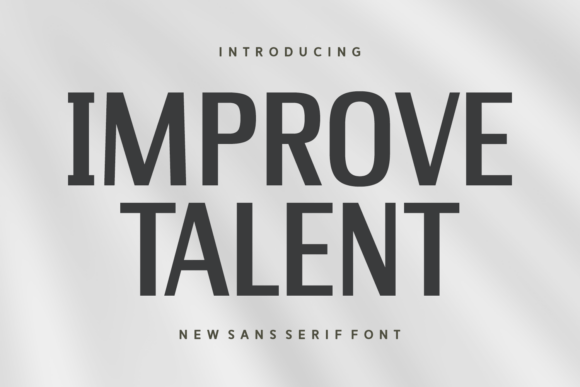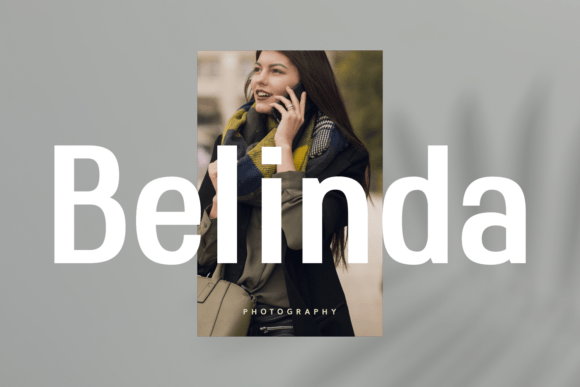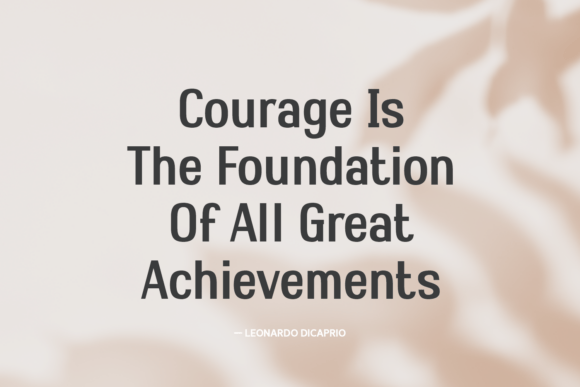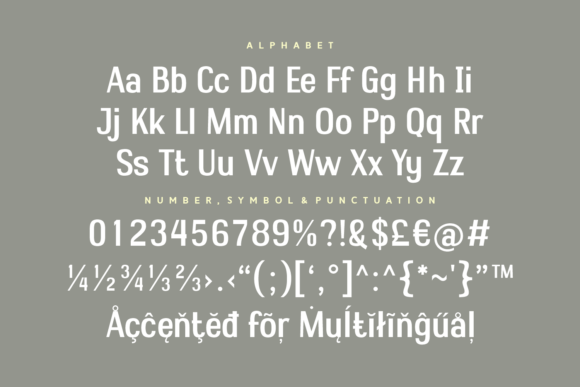
Unlocking the Power of Confidence: Introducing Improve Talent Font
Have you ever stared at a blank page, trying to find the perfect words to convey your message? You’re not alone. We’ve all been there, searching for the right tone, the right style, and the right font to make our words shine. That’s where Improve Talent Font comes in – a sharp and confident sans serif font designed to deliver clarity with presence.
Whether you’re a designer, marketer, or simply someone who wants to make a lasting impression, Improve Talent Font is a valuable tool in your creative arsenal. Its tall letterforms and balanced spacing make it perfect for editorial headlines, corporate branding, and motivational posters. With Improve Talent Font, you can ensure your message stands tall and strong, grabbing the attention of your audience and leaving a lasting impact.
Improve Talent Font Key Features
- Font Family: Improve Talent is a sans-serif font family designed for modern and professional use. It is available in multiple weights, from light to bold.
- Character Set: The font family includes a comprehensive character set, including Latin, Cyrillic, and Greek alphabets, as well as a range of punctuation and symbol characters.
- Unique Characteristics: The font family features a unique blend of modern and classic design elements, with clean lines, geometric shapes, and a highly legible x-height.
- Language Support: Improve Talent is designed to support multiple languages, including English, Spanish, French, German, Italian, Portuguese, and many others, making it a versatile choice for global applications.
Designer Review: Improve Talent Font
Overall, I’d say Improve Talent Font is a decent addition to any design library, but it’s not without its flaws. Here’s my honest take.
- Legibility: Improve Talent Font is easy to read, even at smaller font sizes. The letters are well-spaced and the overall design makes it perfect for body text.
- Neutral tone: The font has a neutral tone that works well for most design projects. It’s not too bold or too subtle, making it a great all-around choice.
- Character set: The font includes a wide range of characters, including some accented letters and symbols.
- Lack of personality: While the font is easy to read, it’s also a bit too generic. It doesn’t stand out from the crowd, which might make it harder to use in projects where a more unique font is needed.
- Not ideal for headings: The font is better suited for body text, but it doesn’t have the same impact when used for headings. The letters can feel a bit too plain and lacking in drama.
I’d give Improve Talent Font 3 out of 5 stars. It’s a solid choice for body text, but it falls short when it comes to adding personality to a design. If you’re looking for a font that’s easy to read and works well in a variety of situations, Improve Talent Font is a good option. However, if you’re looking for something with a bit more flair, you might want to consider other options.
Tips for Getting the Most Out of Improve Talent Font
Here are some tips for getting the most out of Improve Talent Font:
- Use Improve Talent Font for headings and titles to create a professional and modern look
- Experiment with different font sizes and styles to create visual interest
- Pair Improve Talent Font with other fonts to create a unique and visually appealing design
Improve Talent Font is commonly used for: